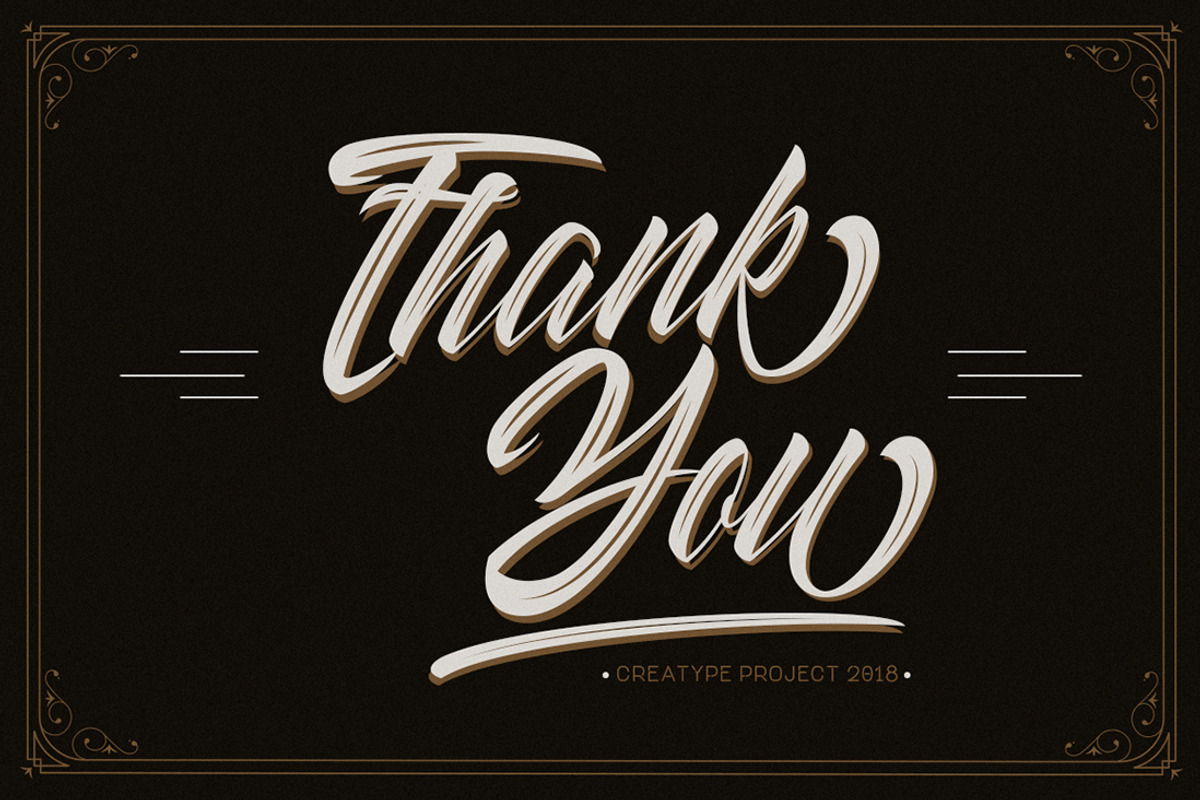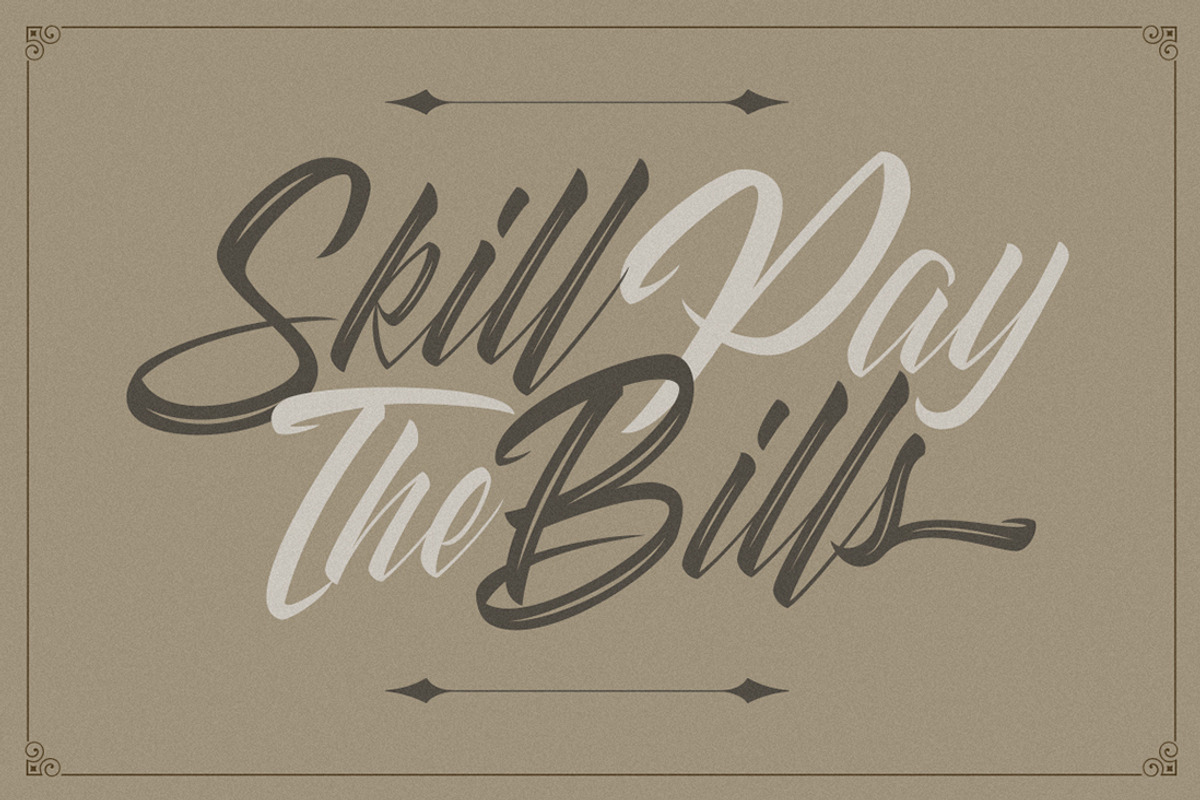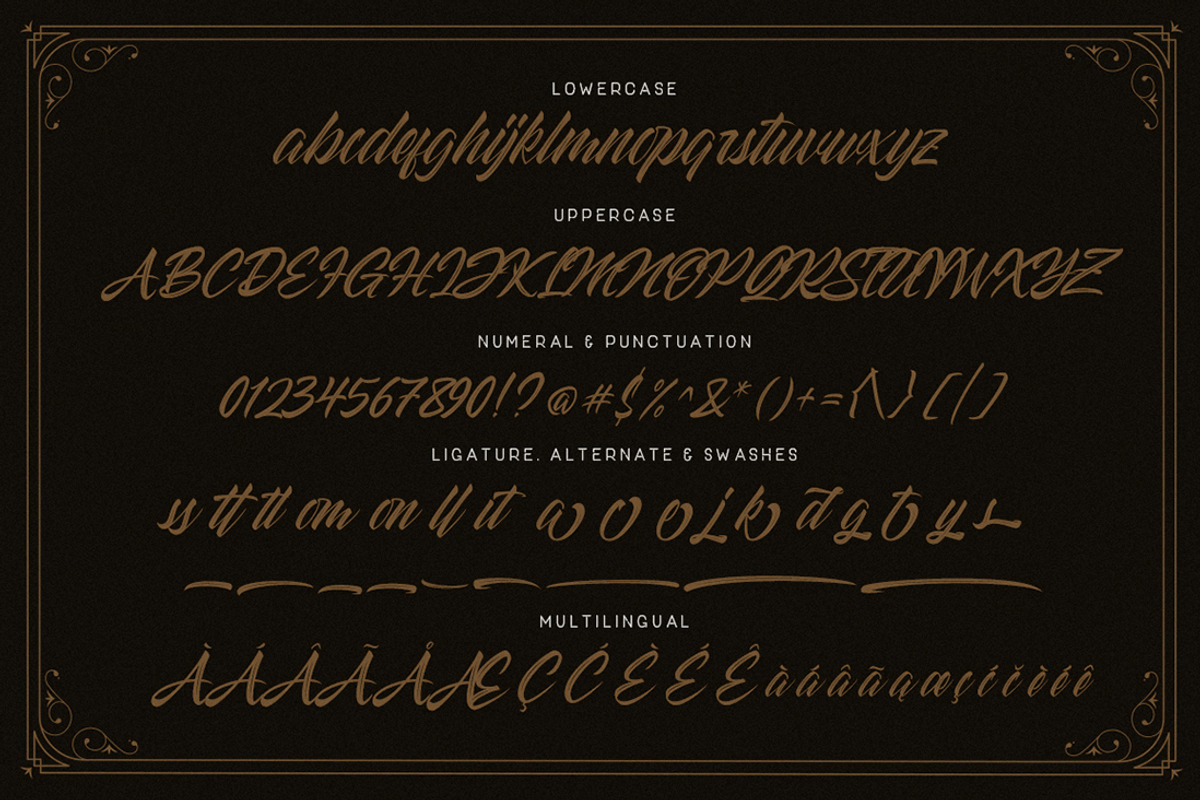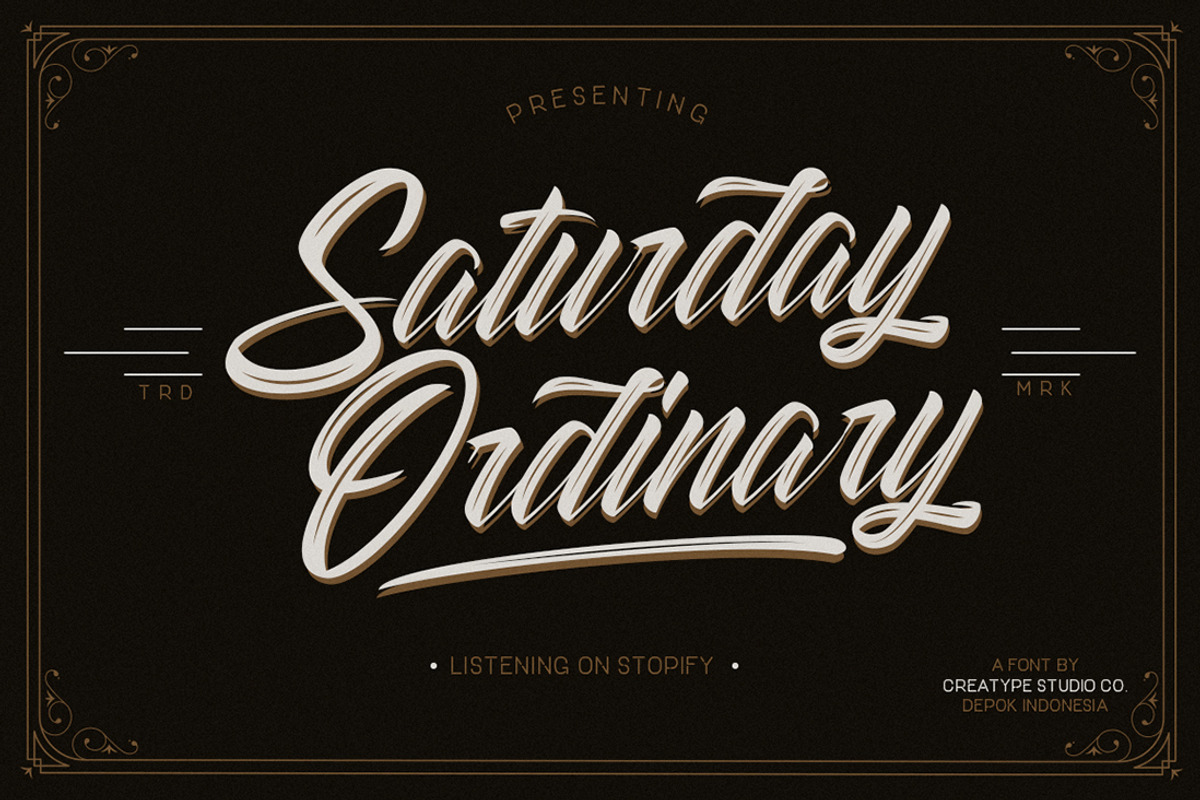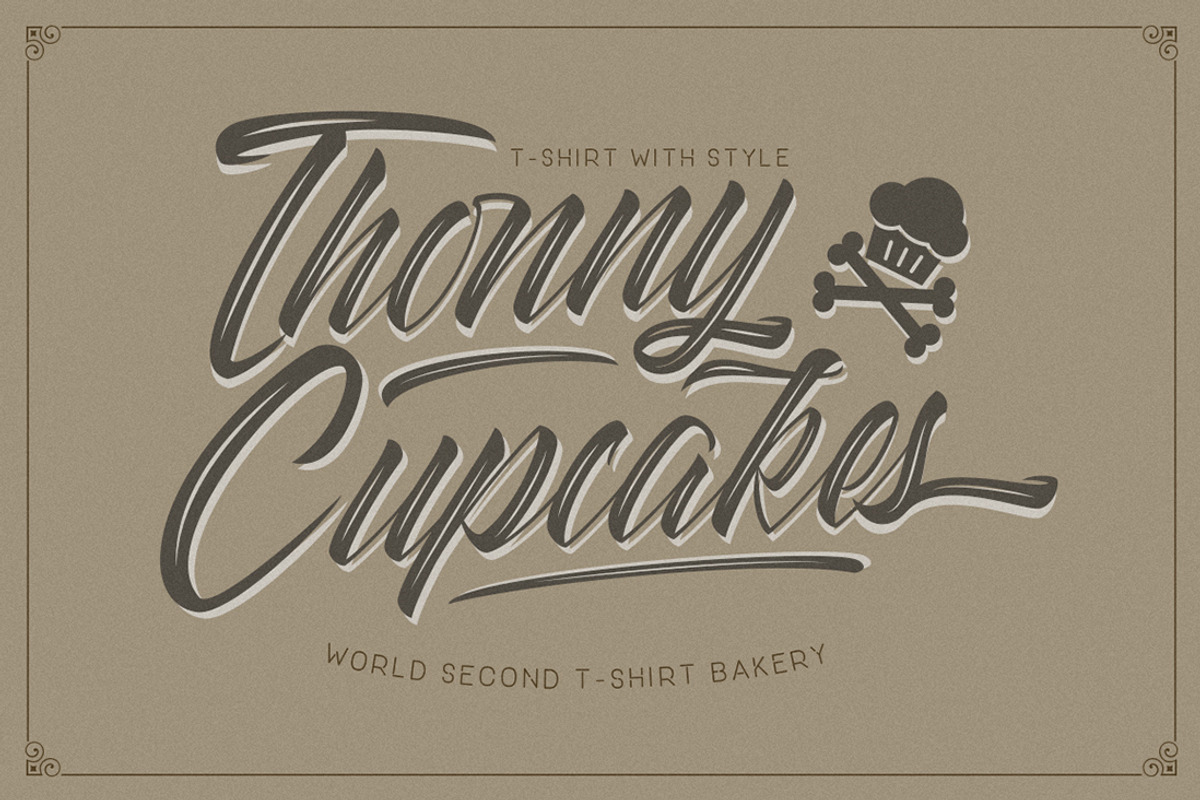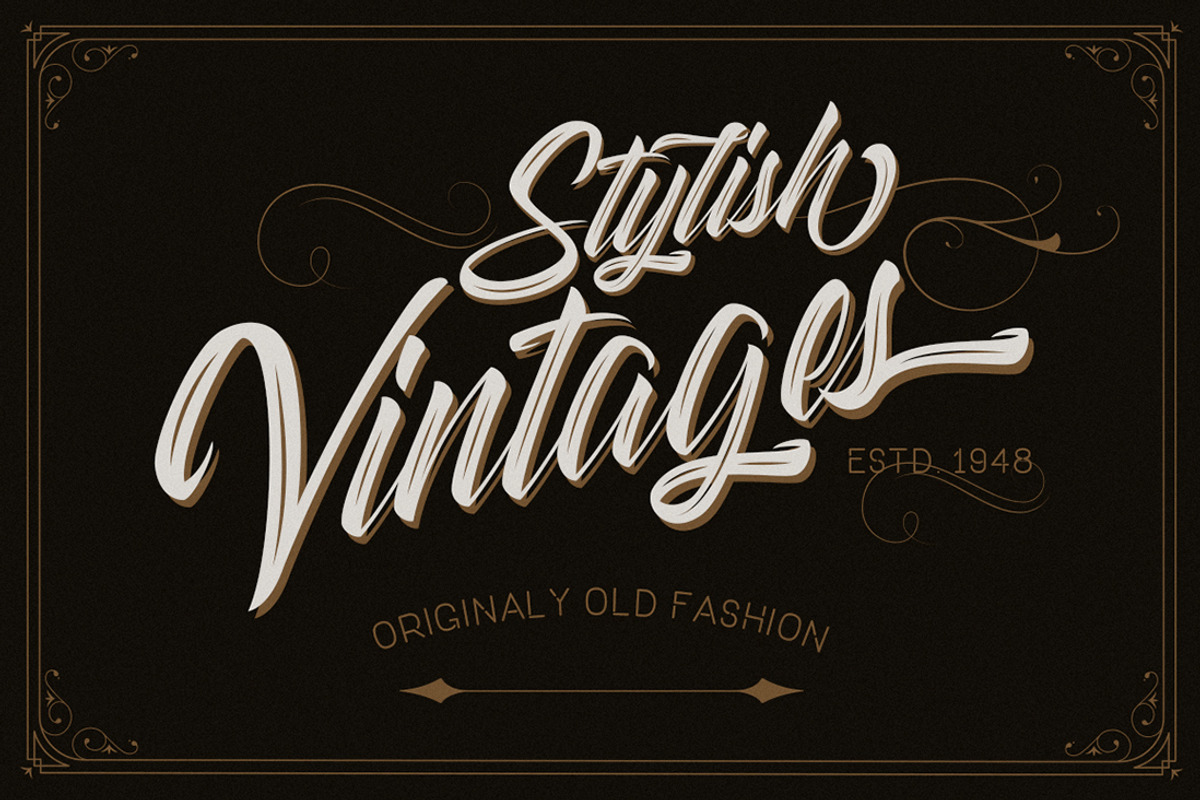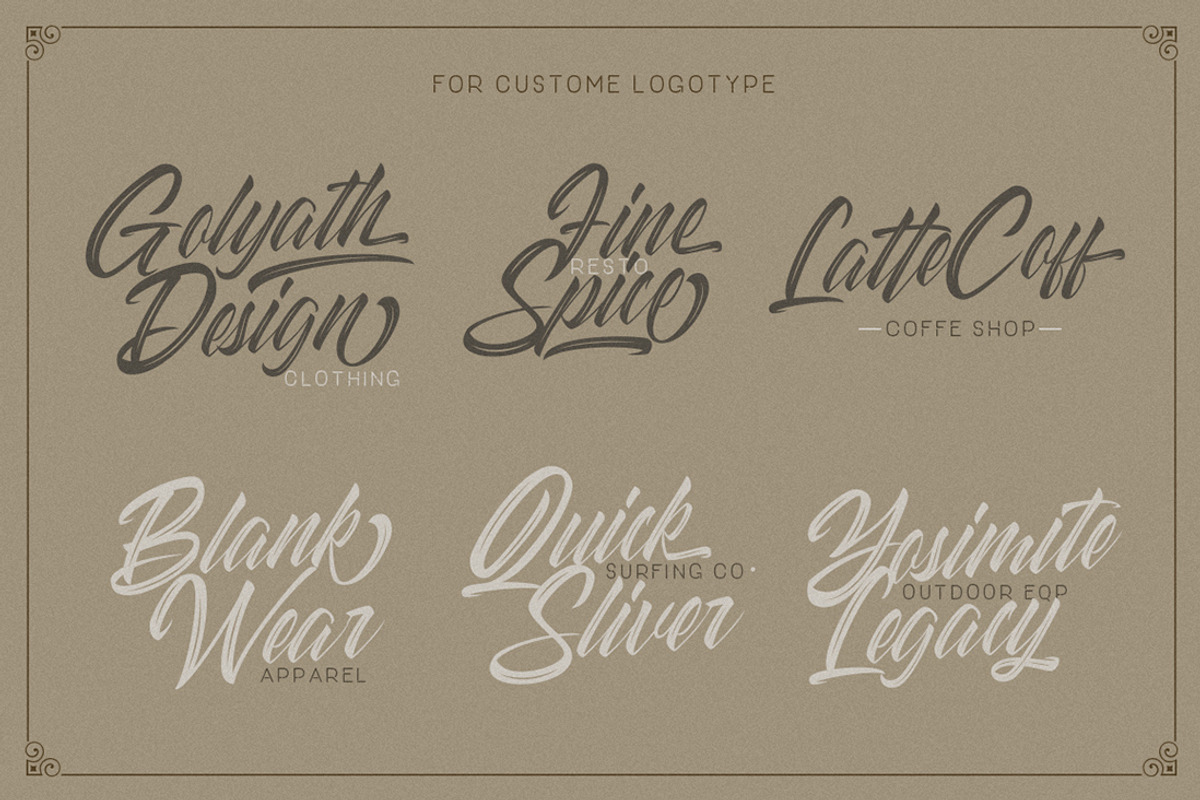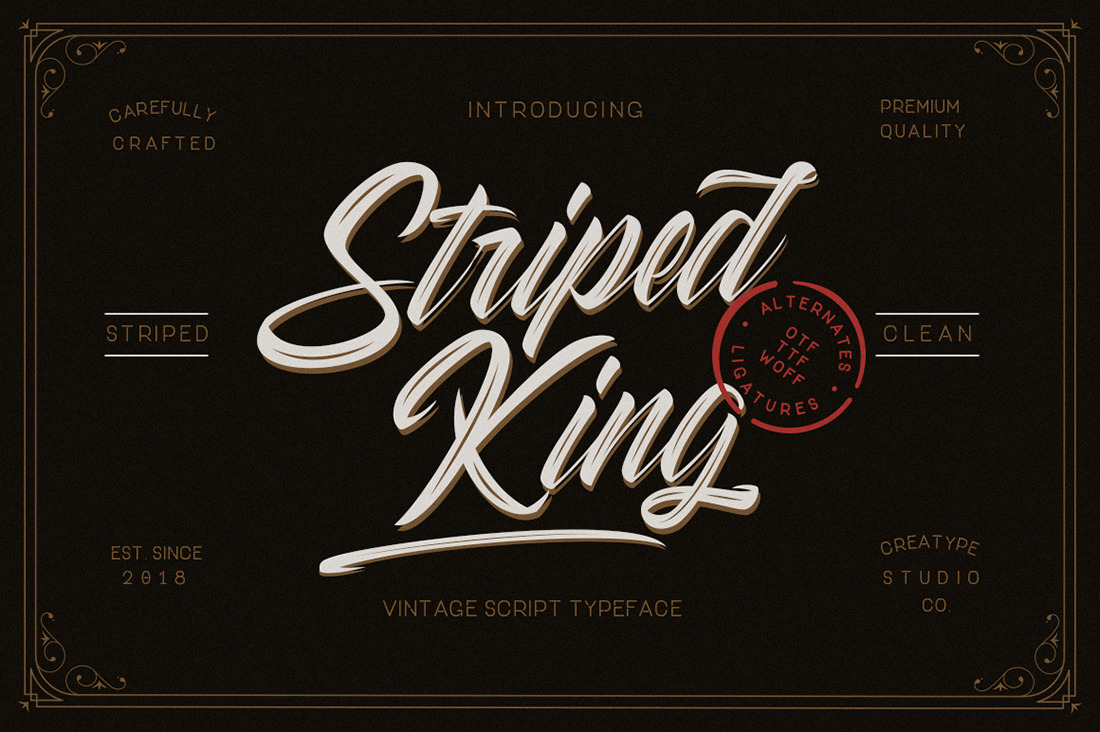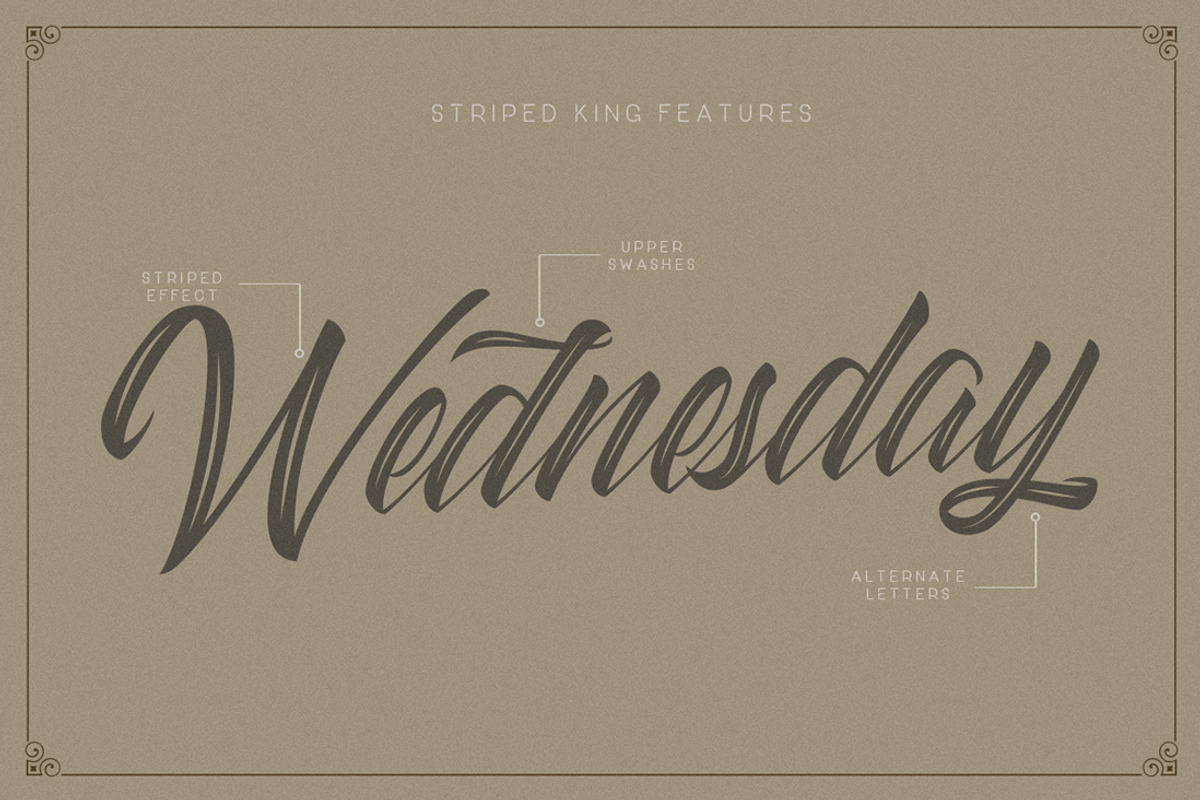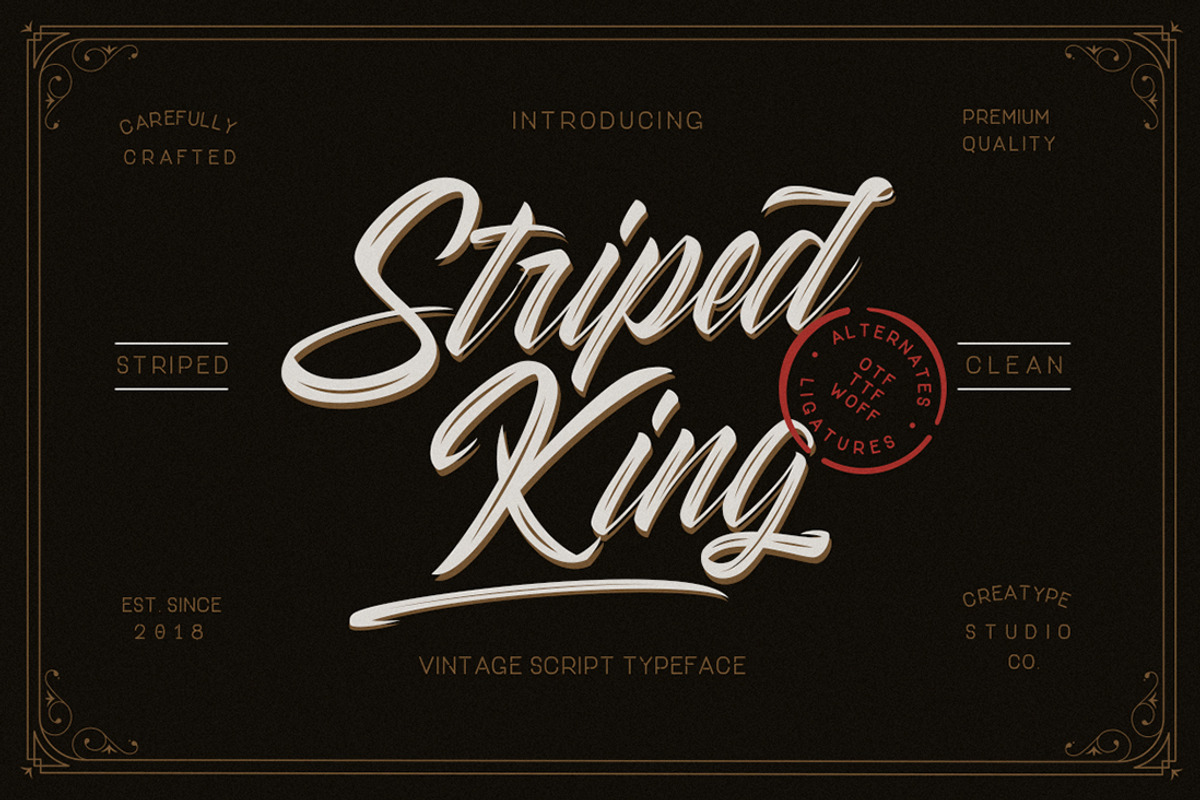
Striped King Vintage Business Font
Hello! Striped King is a modern, vintage-inspired font that looks great in a wide range of projects. This gives projects an elegant and immensely stylish appeal.
Striped King is perfect for branding projects, logo, wedding designs, social media posts, advertisements, product packaging, product designs, label, photography, watermark, invitation, stationery and any projects that need handwriting taste.
- More than 500 of glyphs
- Ligature & Stylistic alternate